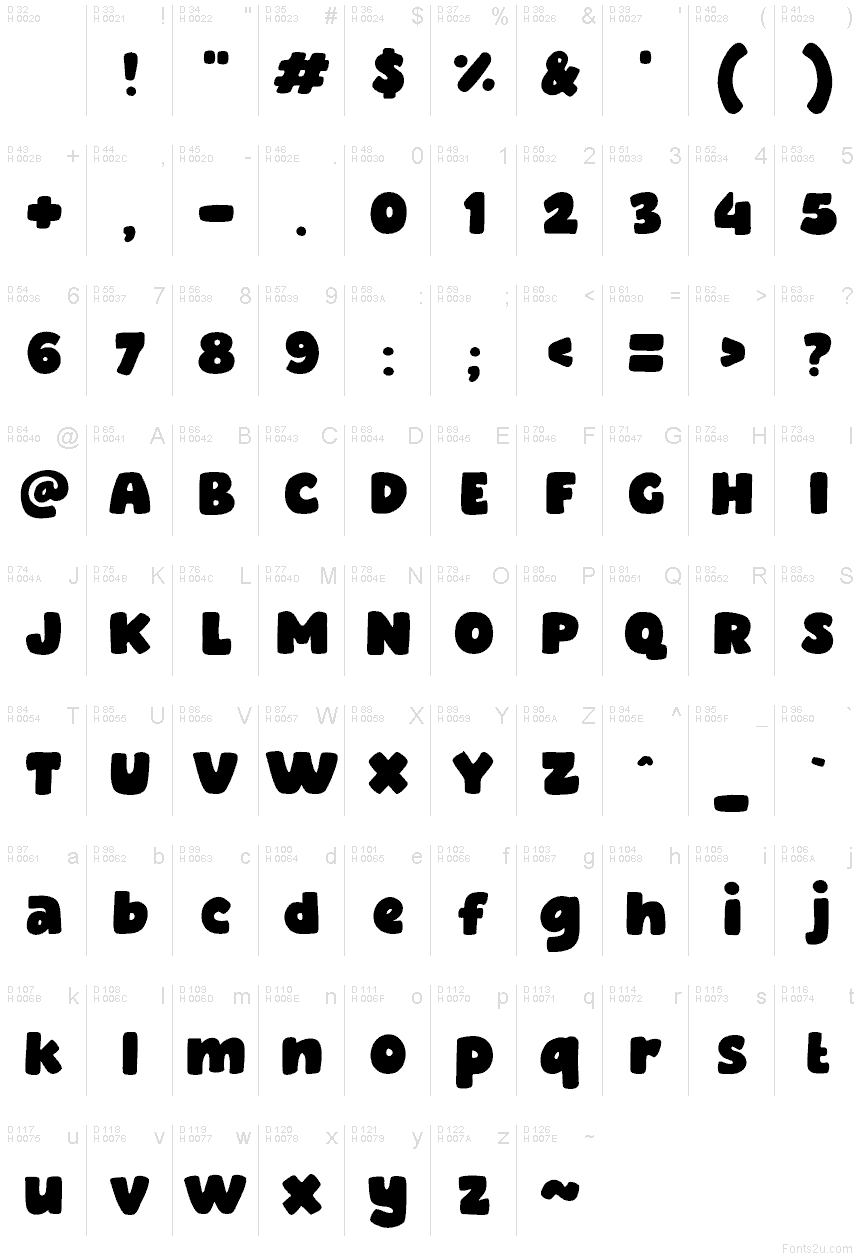
Green Sky
Green Sky font by MJType is a bold display font with a cartoon style and a friendly, casual vibe. This contemporary typeface features soft, rounded forms making it especially approachable, cheerful, and playful. Each letter sits on its own baseline resulting in a fun appearance that will easily make any text stand out.
A free font equipped with standout catchy letters for titles ins logotypes, websites headers. It’ll also be the perfect choice for social media designs & ad copies for Instagram stories or posts. Team it up with body text fonts to bring more life into posters, flyers, brochures & books covers.